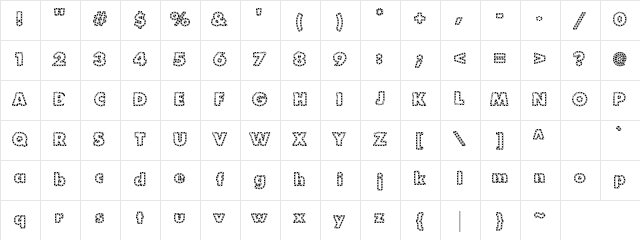
LD Holly Checks Regular
Design Context for LD Holly Checks Typeface
LD Holly Checks is a composed and adaptable typeface that performs quietly and consistently across a wide range of design contexts.